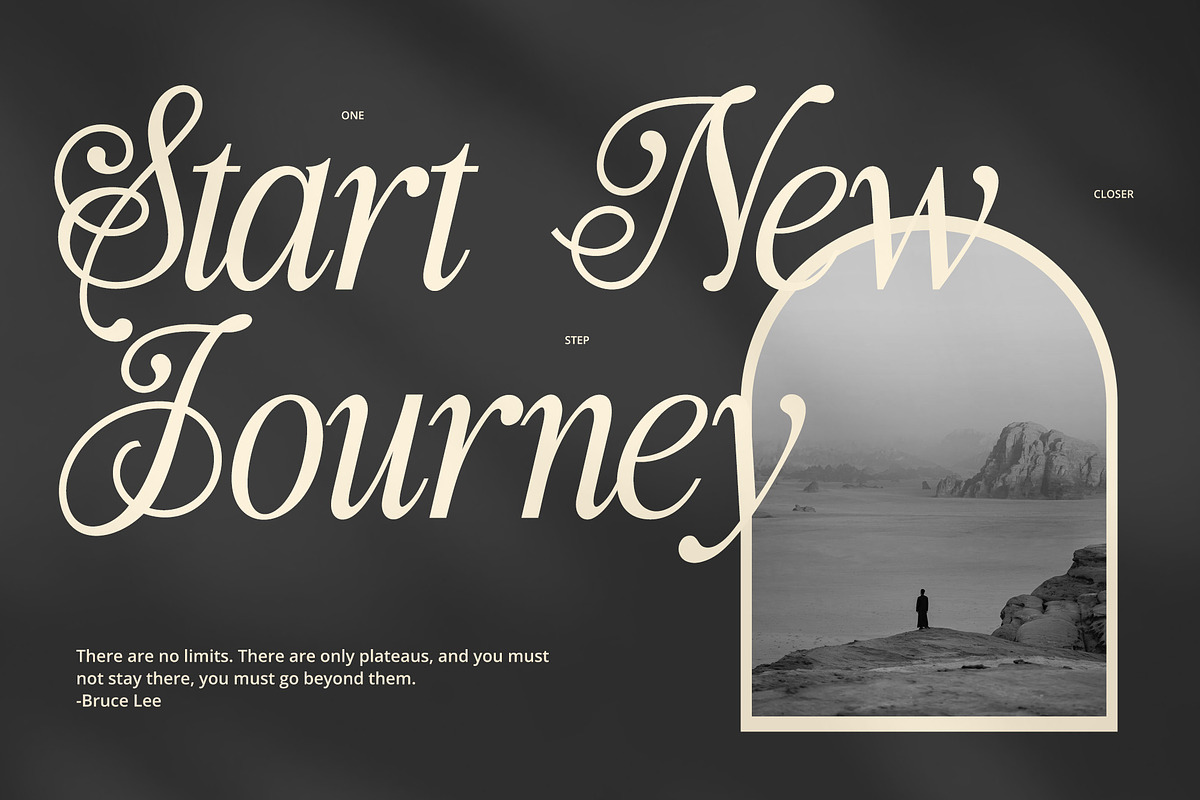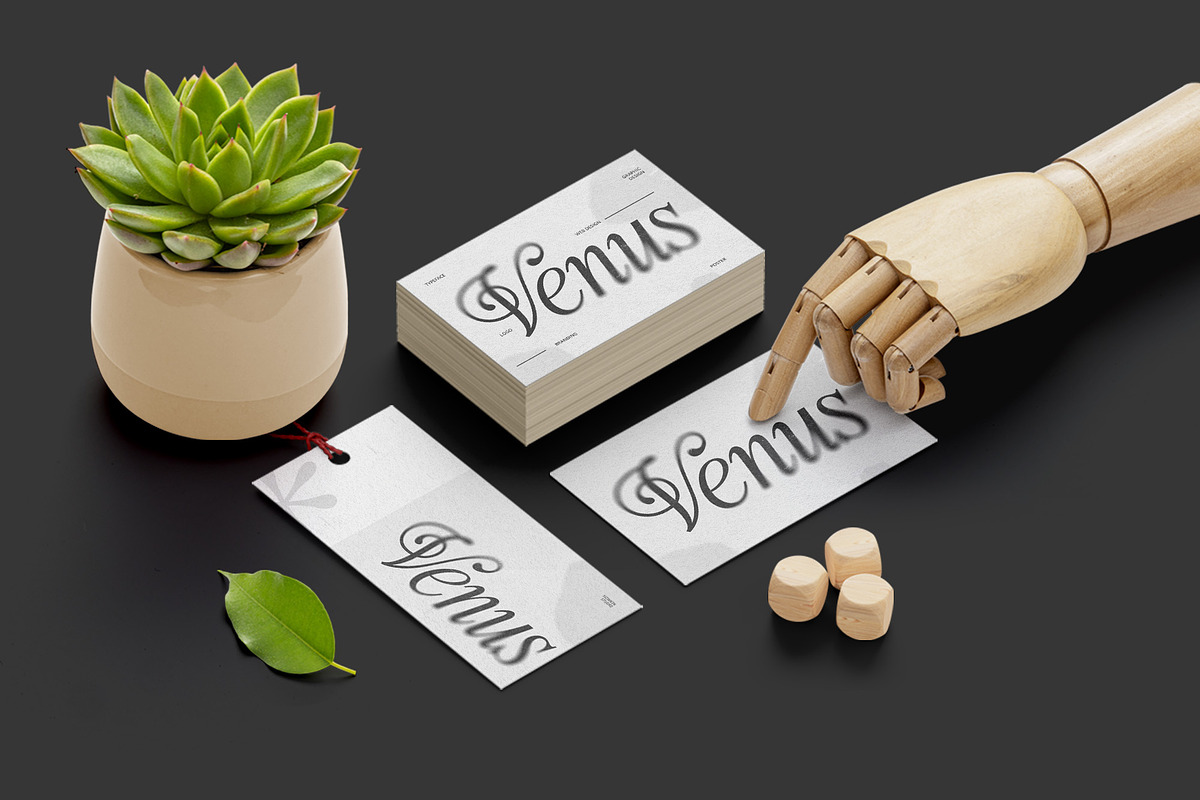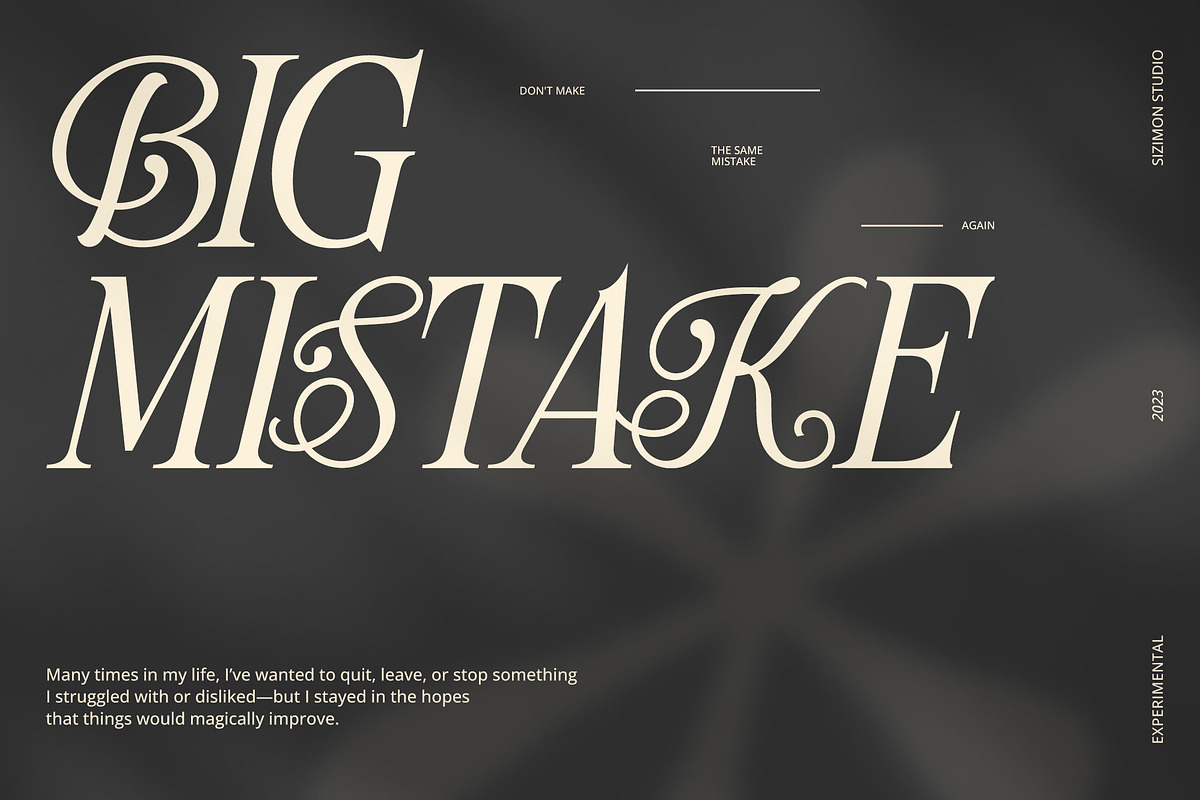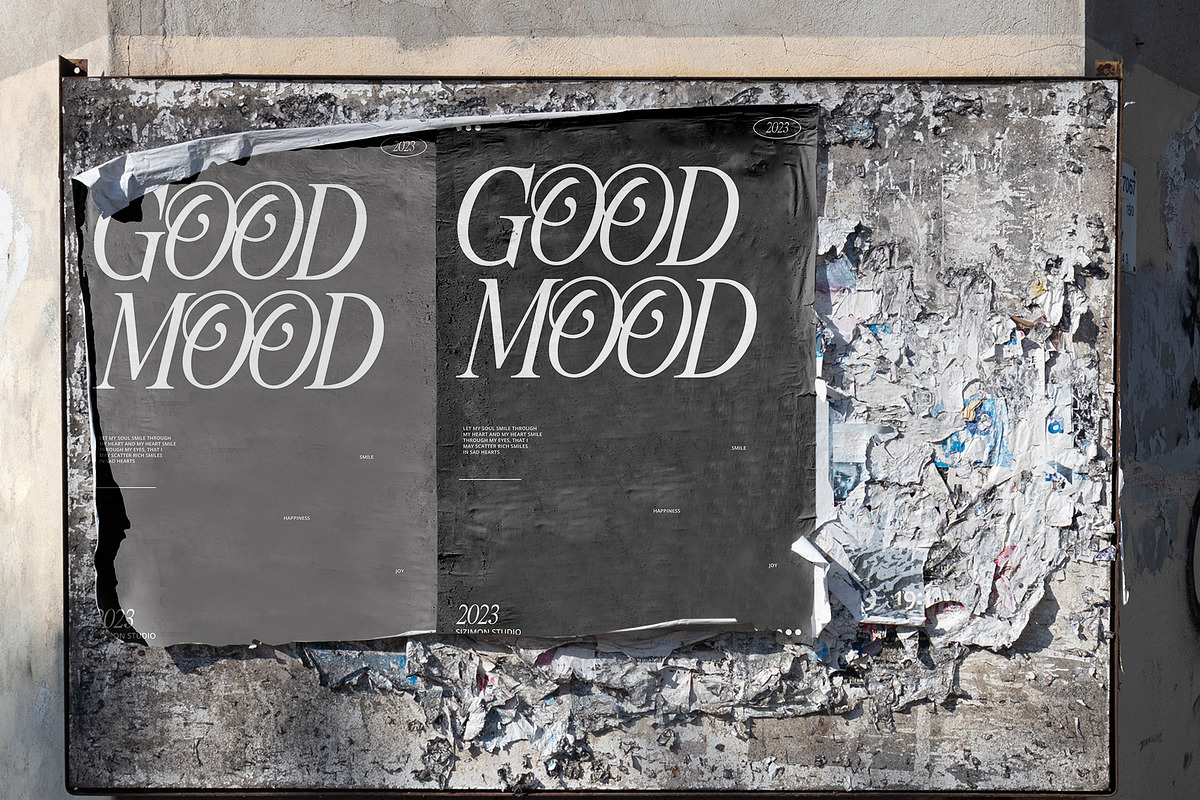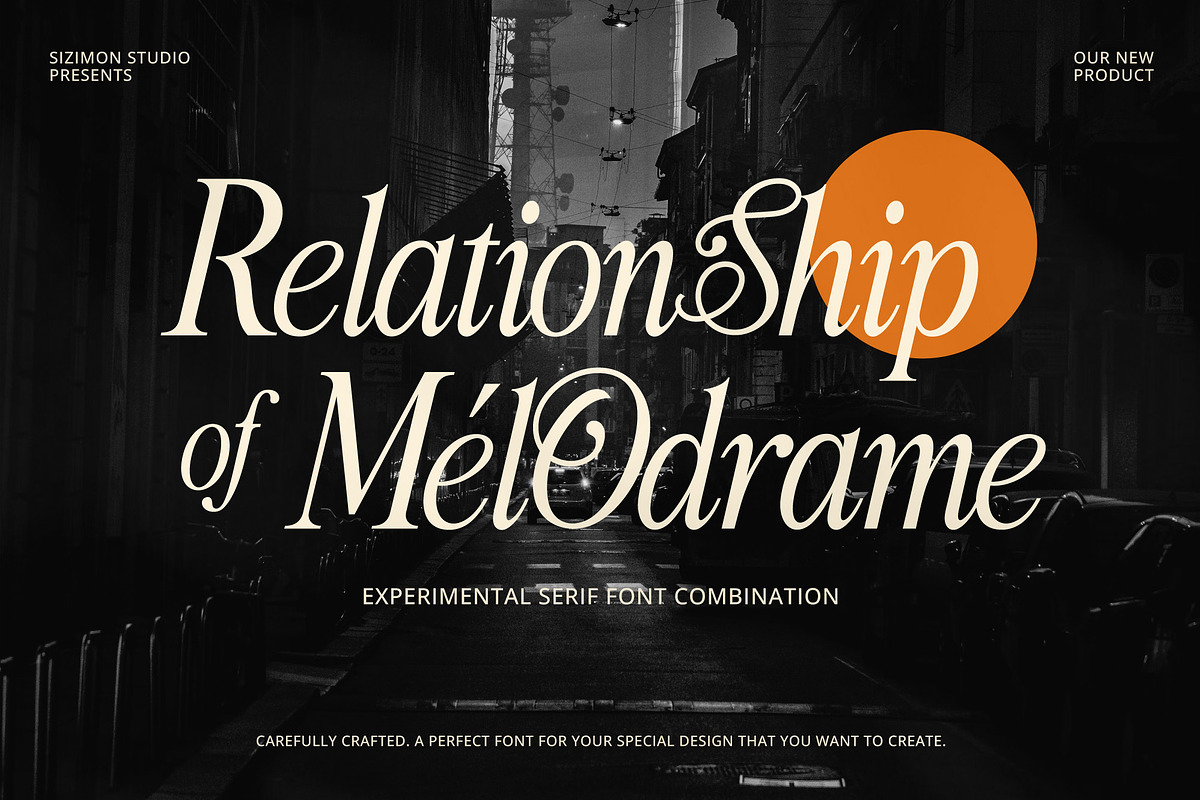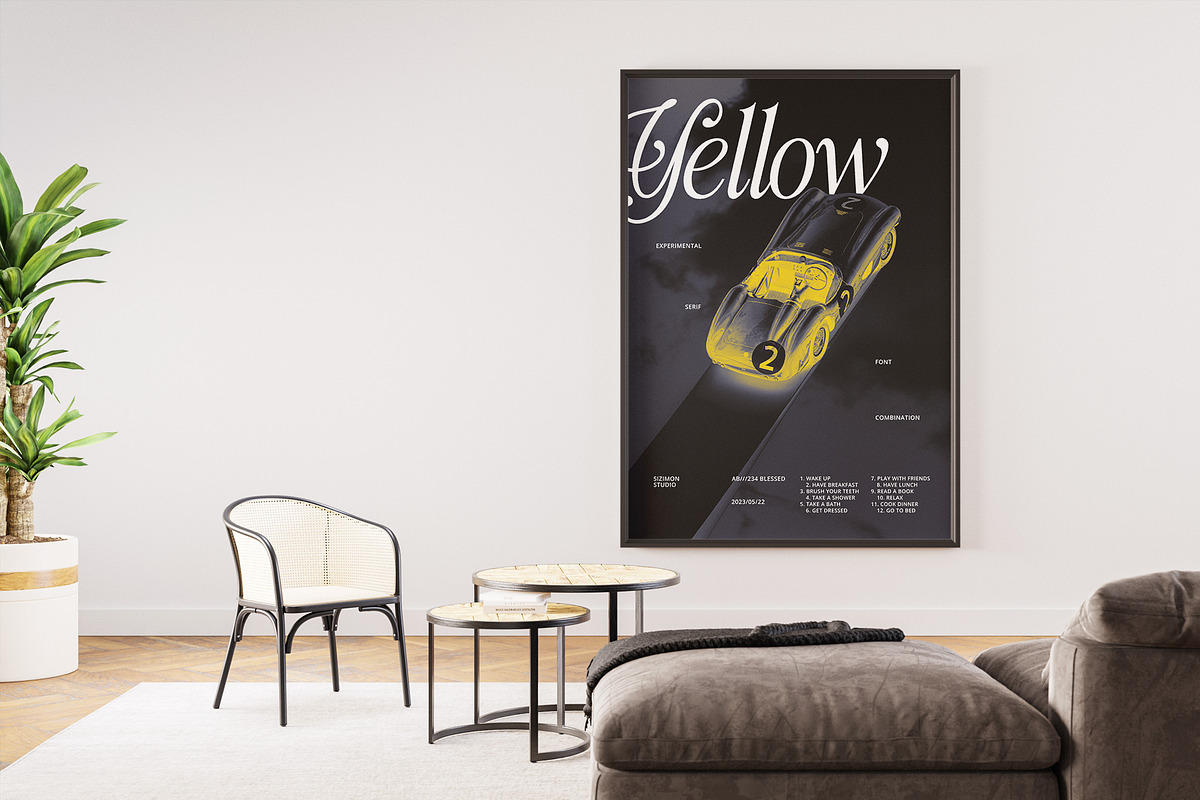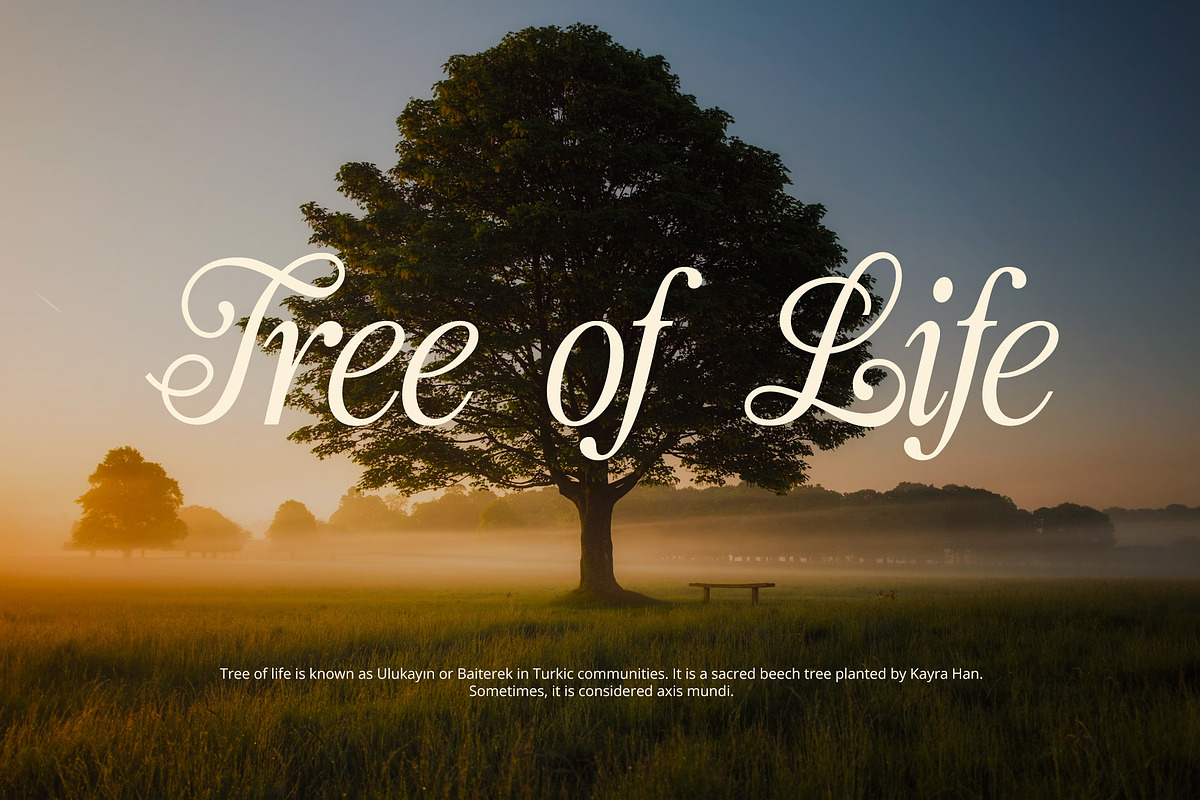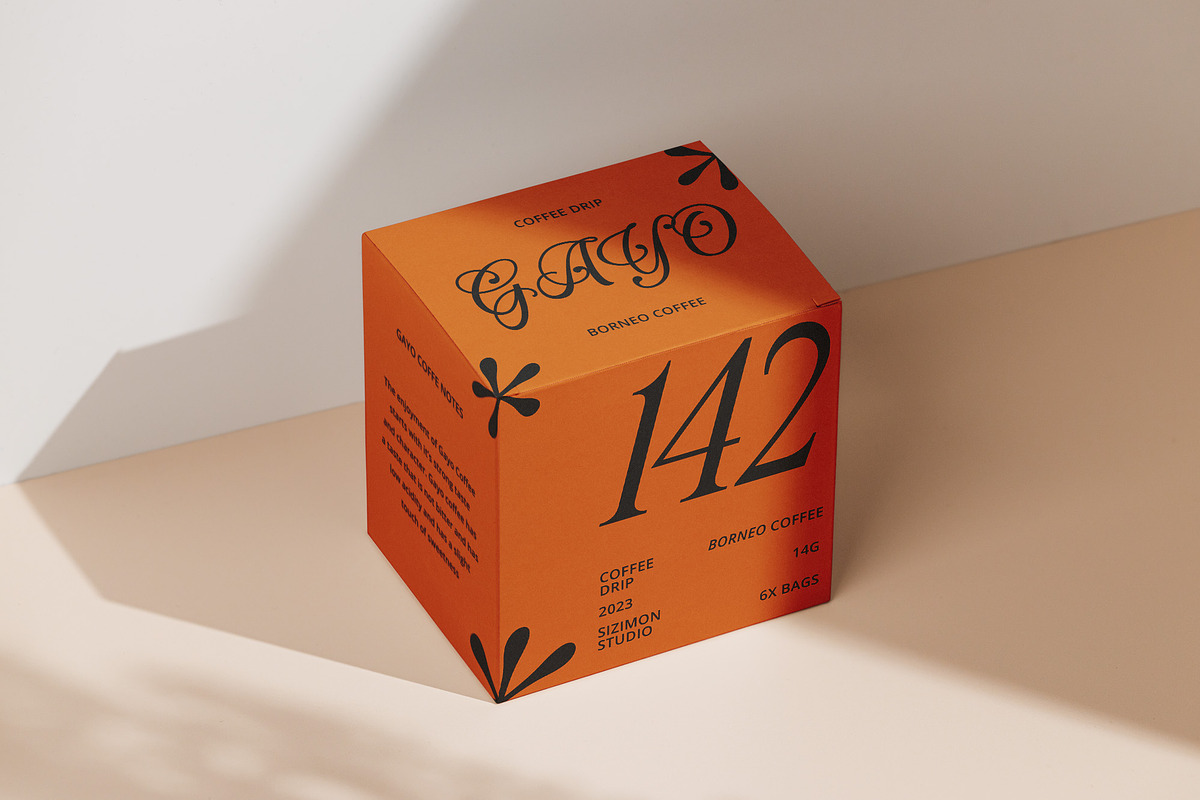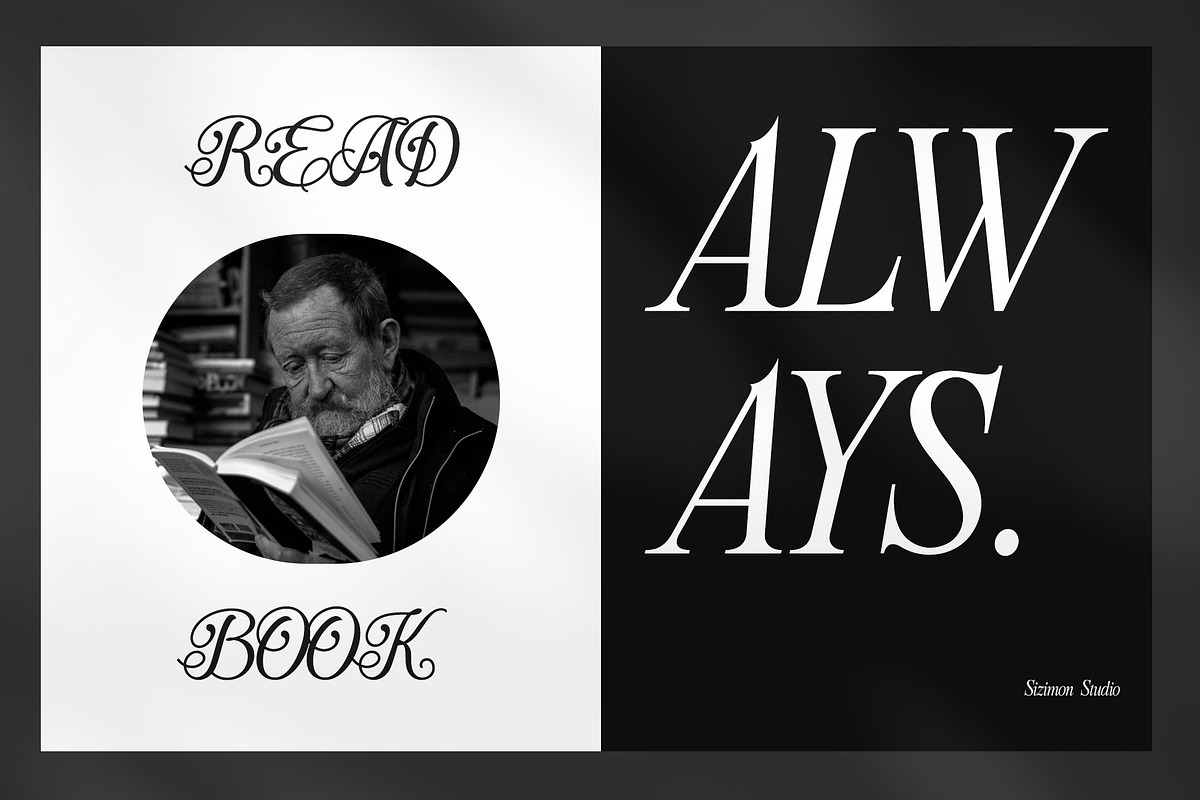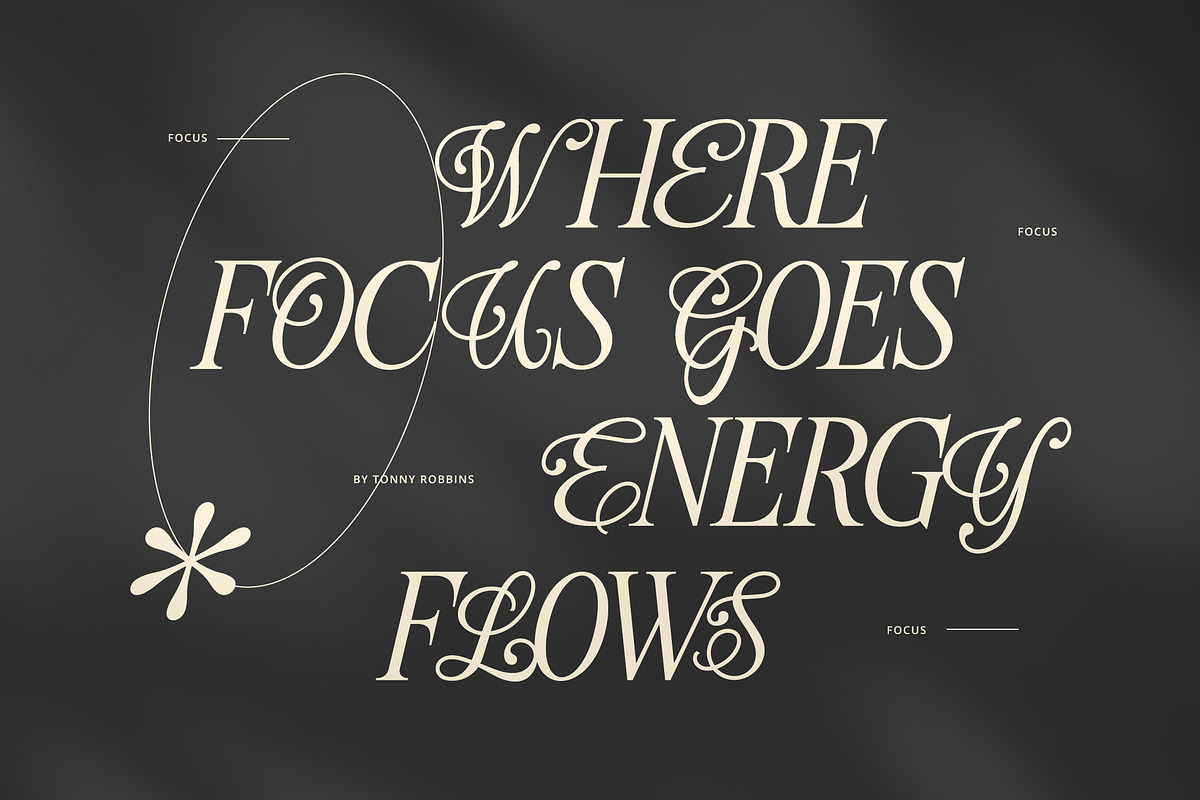
Relationship of Melodrame
Relationship of Mélodrame Font is an experimental serif font. Experimental serif font is a daring typeface that combines traditional serifs with graceful calligraphic elements. This font is ideal for pushing creative boundaries in projects such as magazine layouts, album covers, and artistic posters.
Relationship of Mélodrame Font Include :
- Uppercase : Cursive letter & Italic Variable
- Lowercase : Italic Variable
- Punctuation and Marks
- stylistic set & Ligatures